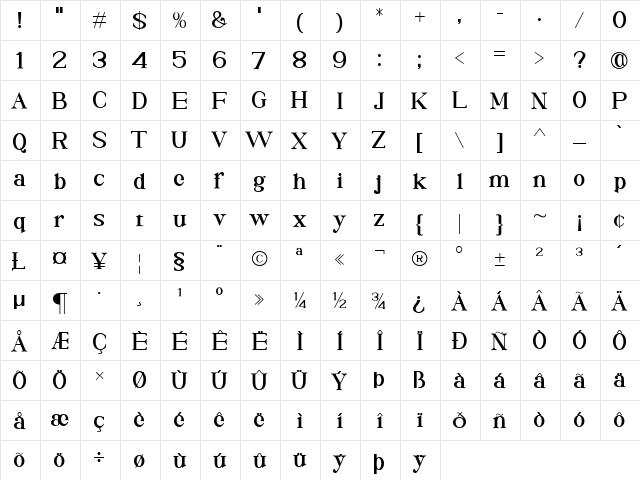
Riglia Reguler
| Foundry | Greafora Creative |
| Designer | Greafora Creative |
Design Context for Riglia Typeface
Riglia offers clean, dependable letterforms without strong stylistic allegiance, making it a practical choice for designers who need flexibility.